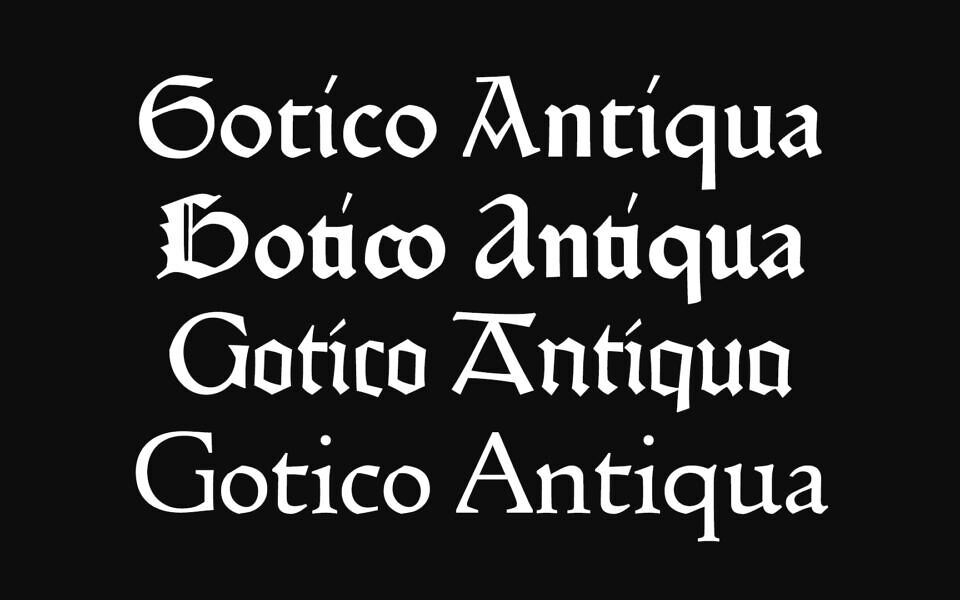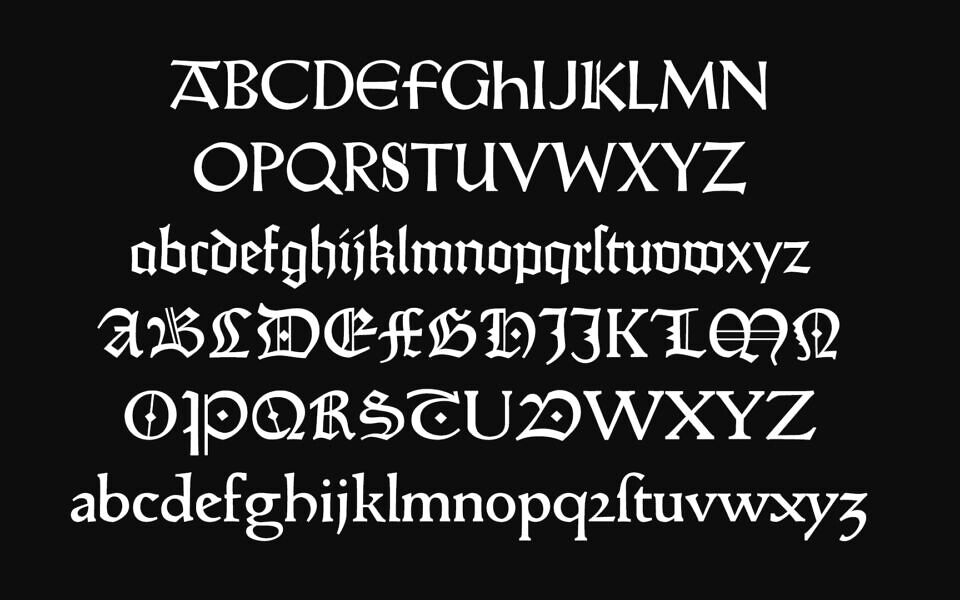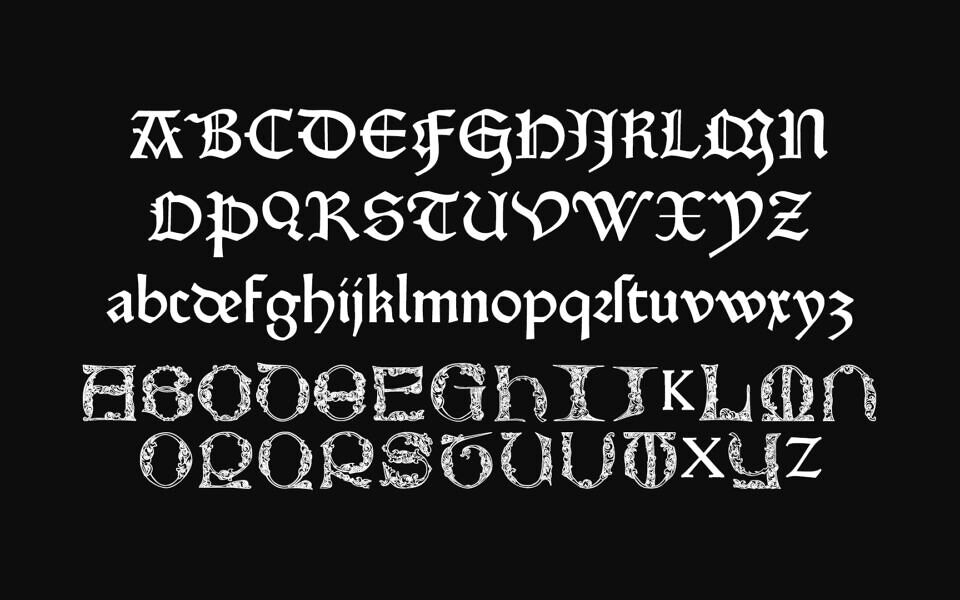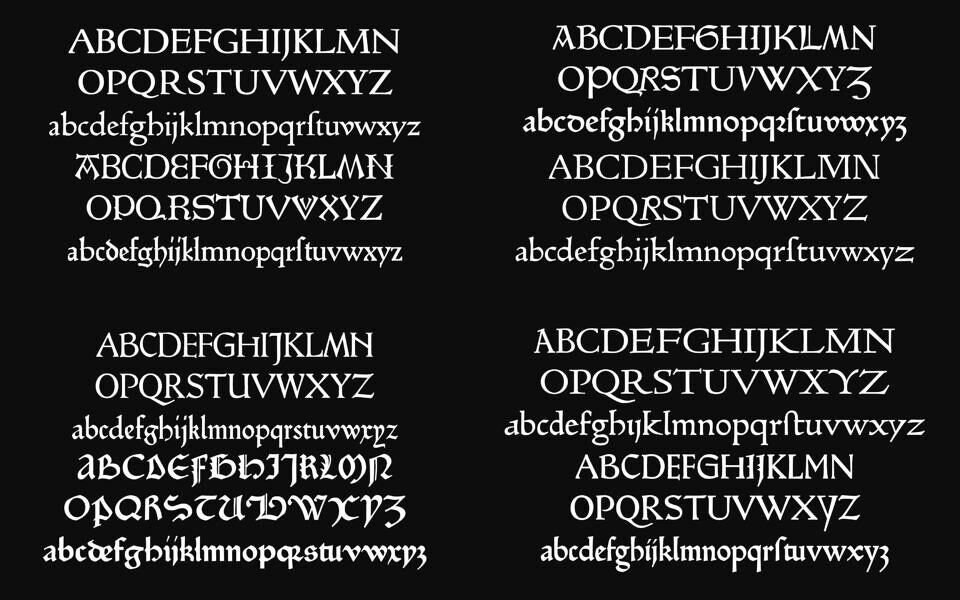
GoticoAntiqua is an open-source historical typeface collection reviving fifteenth-century fonts that sit between gothic and roman styles, produced as part of typographic research at the Atelier National de Recherche Typographique (ANRT).
It includes about 15 original digital fonts and one set of decorative initials based on printed sources like Durandus, Subiaco, Spira, Rot, Rusch, and Zainer from 1459–1482, created through international workshops and released under the SIL Open Font License.